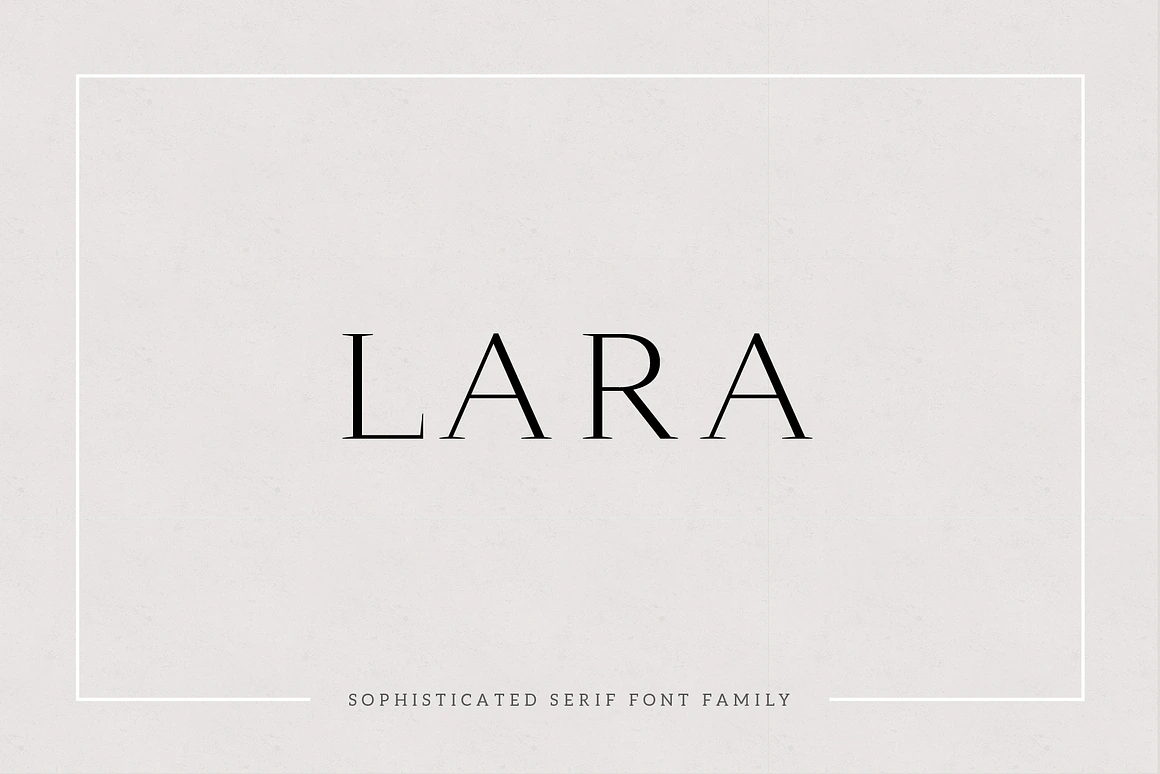
Lara - Sophisticated Serif Typeface
Lara Sophisticated Serif Typeface is perfect for luxury branding, editorial design, book publishing, magazine layouts, premium packaging, elegant logos, sophisticated advertising, cultural institutions, academic publications, and refined visual communications. This distinguished typeface excels in both digital and print applications requiring elegant authority.
Lara Sophisticated Serif Typeface is exciting because it combines classical elegance with contemporary refinement, offering timeless letterforms that convey scholarly sophistication and luxury appeal while maintaining exceptional readability for extended text applications. Its distinguished character creates memorable brand experiences that resonate with discerning audiences.
The Lara Sophisticated Serif Typeface family includes regular, bold, light, italic, condensed, extended, and display variants, providing designers with comprehensive typographic options for various design scenarios and sophisticated communication hierarchies.
Lara Sophisticated Serif Typeface represents the pinnacle of typographic refinement, combining centuries of serif tradition with contemporary sophistication to create letterforms that embody intellectual authority and luxury appeal. This distinguished typeface reflects the highest standards of editorial design while incorporating modern technical requirements for optimal performance across all media platforms. The font's sophisticated character makes it particularly valuable for luxury brands, publishing houses, cultural institutions, and premium organizations that require typography capable of conveying scholarly gravitas, luxury positioning, and intellectual credibility.
The architectural excellence of Lara Sophisticated Serif Typeface demonstrates masterful understanding of classical letterform construction, with carefully crafted serifs and refined proportions that enhance reading comfort during extended consumption while maintaining visual distinction. This sophisticated foundation ensures superior performance in demanding applications, from luxury packaging to complex academic publications where clarity and authority are paramount. The font's elegant presence creates premium communications that inspire confidence while maintaining the readability essential for information-heavy and luxury applications.
Creative professionals working with Lara Sophisticated Serif Typeface Free Download will appreciate the typeface's versatility across luxury and contemporary design challenges. Its sophisticated styling bridges historical typography with modern premium requirements, making it suitable for established luxury institutions and innovative premium brands requiring credible, authoritative visual communication. The font's prestigious presence makes it particularly effective for museums, luxury hotels, premium publishers, and cultural organizations that must communicate excellence through refined, trustworthy visual design.
Whether developing luxury brand identities, creating sophisticated communications, or designing premium marketing materials, Lara Sophisticated Serif Typeface provides the typographic distinction needed for communications that establish authority while maintaining sophisticated standards and achieving lasting credibility across all luxury and intellectual platforms requiring elegant sophistication.